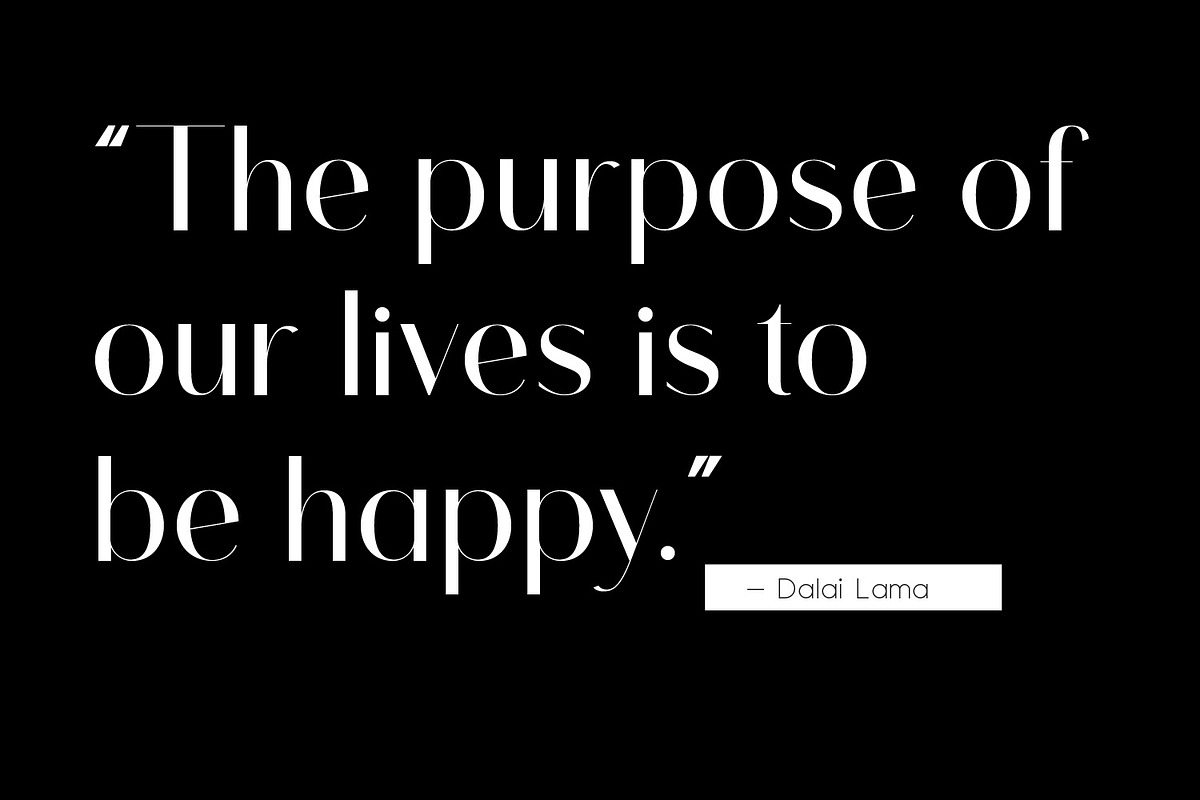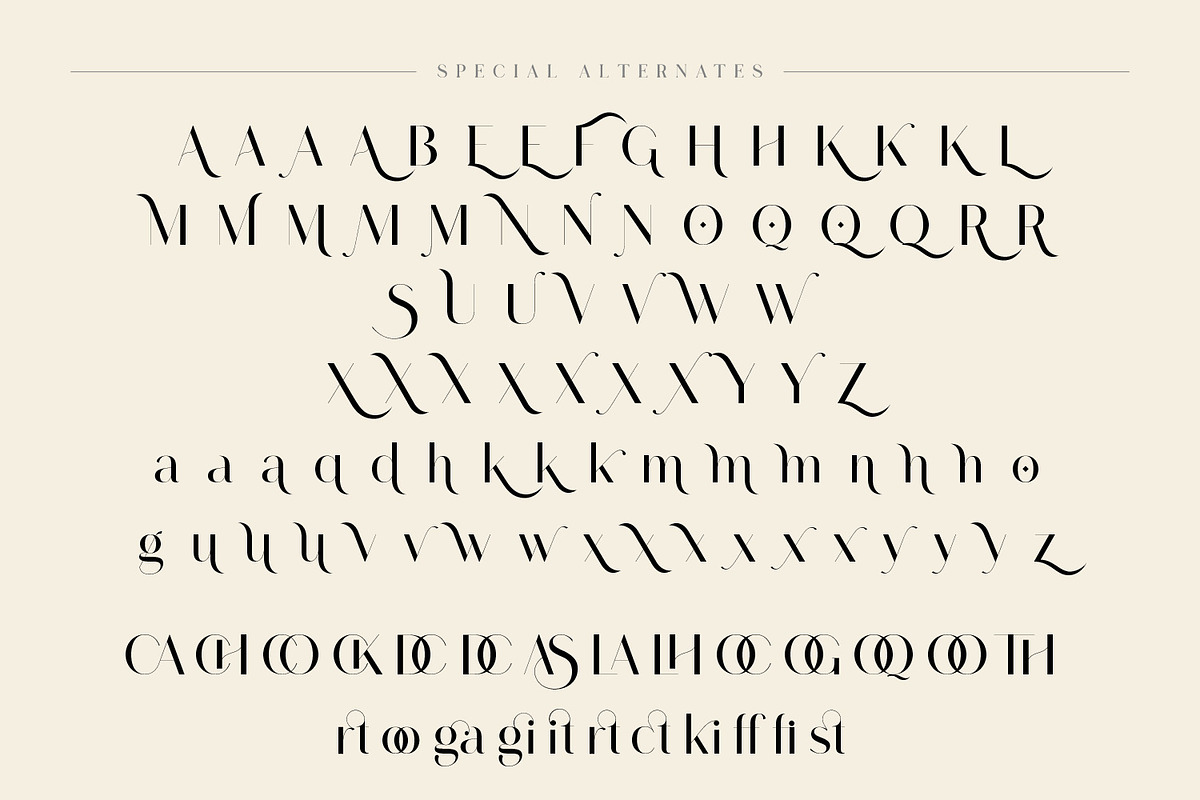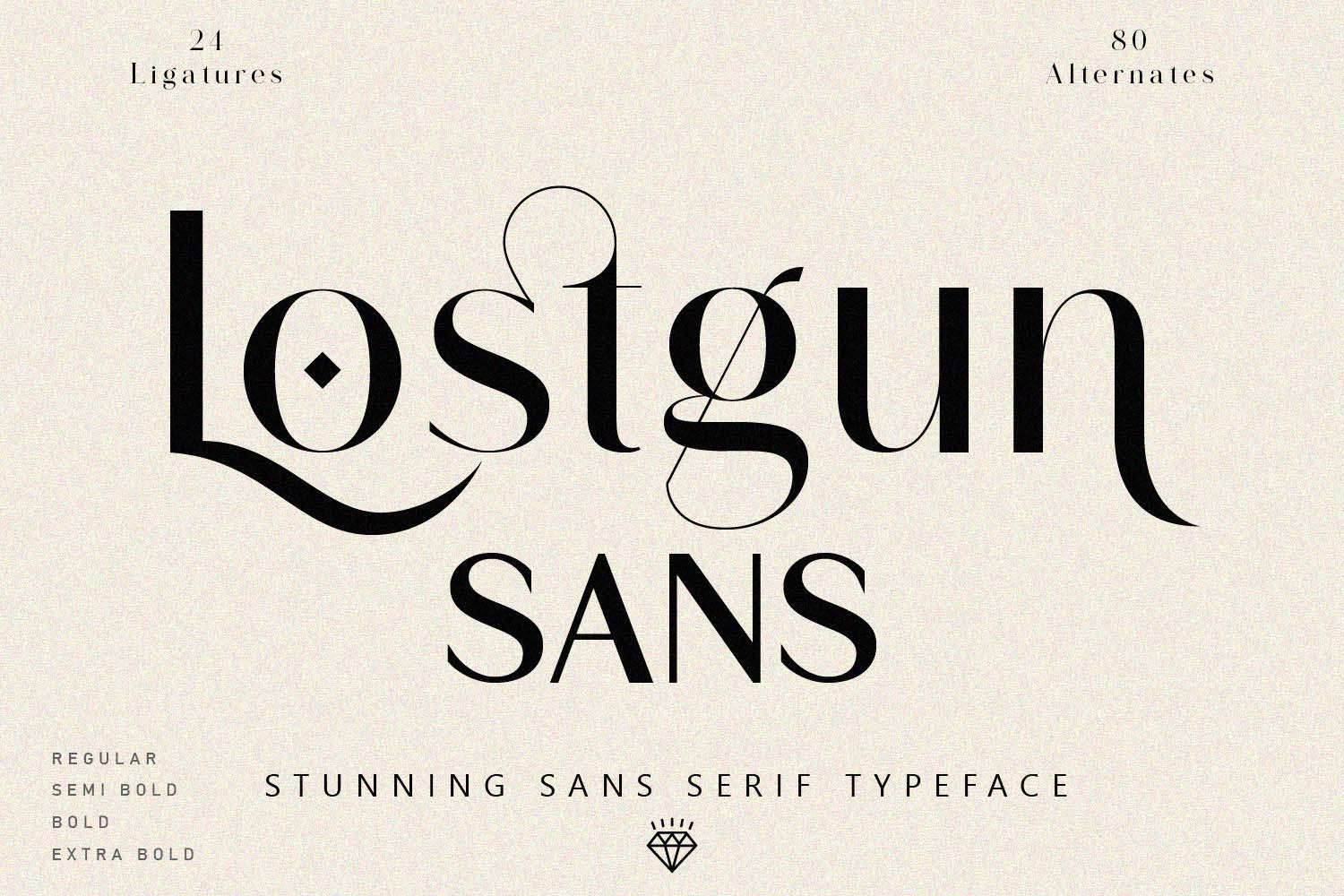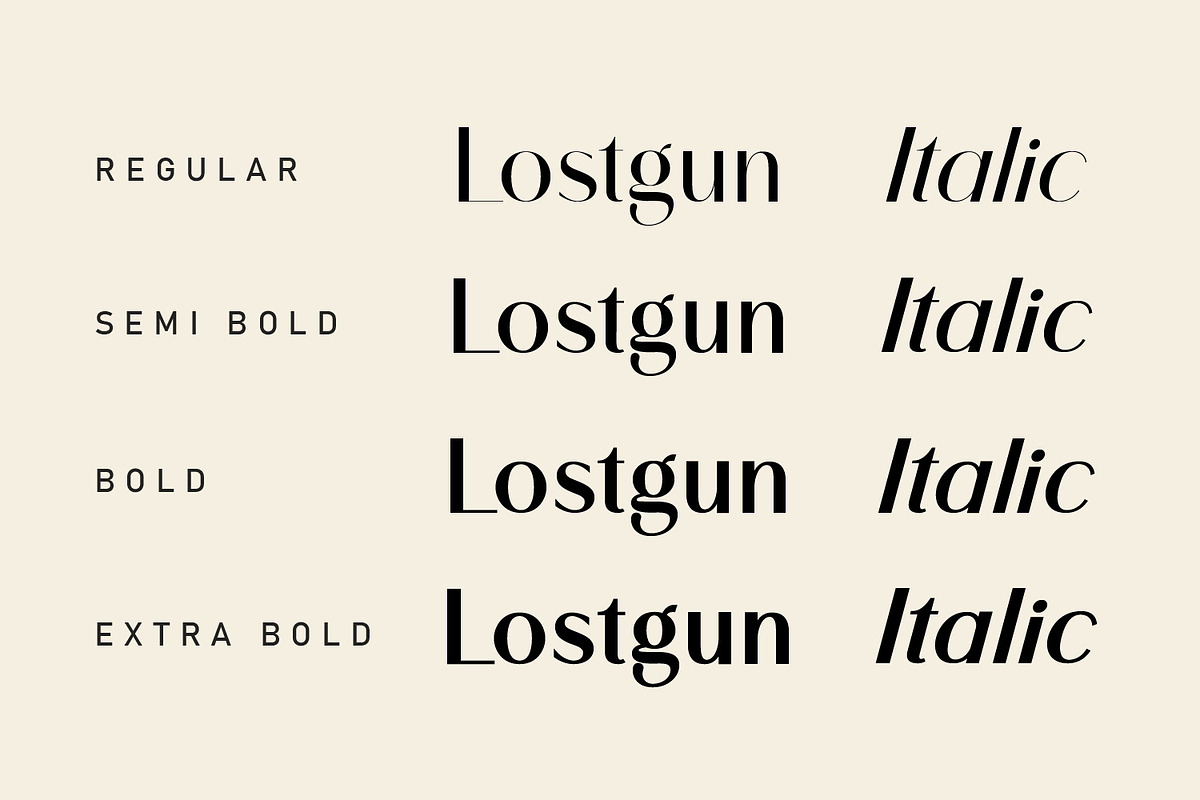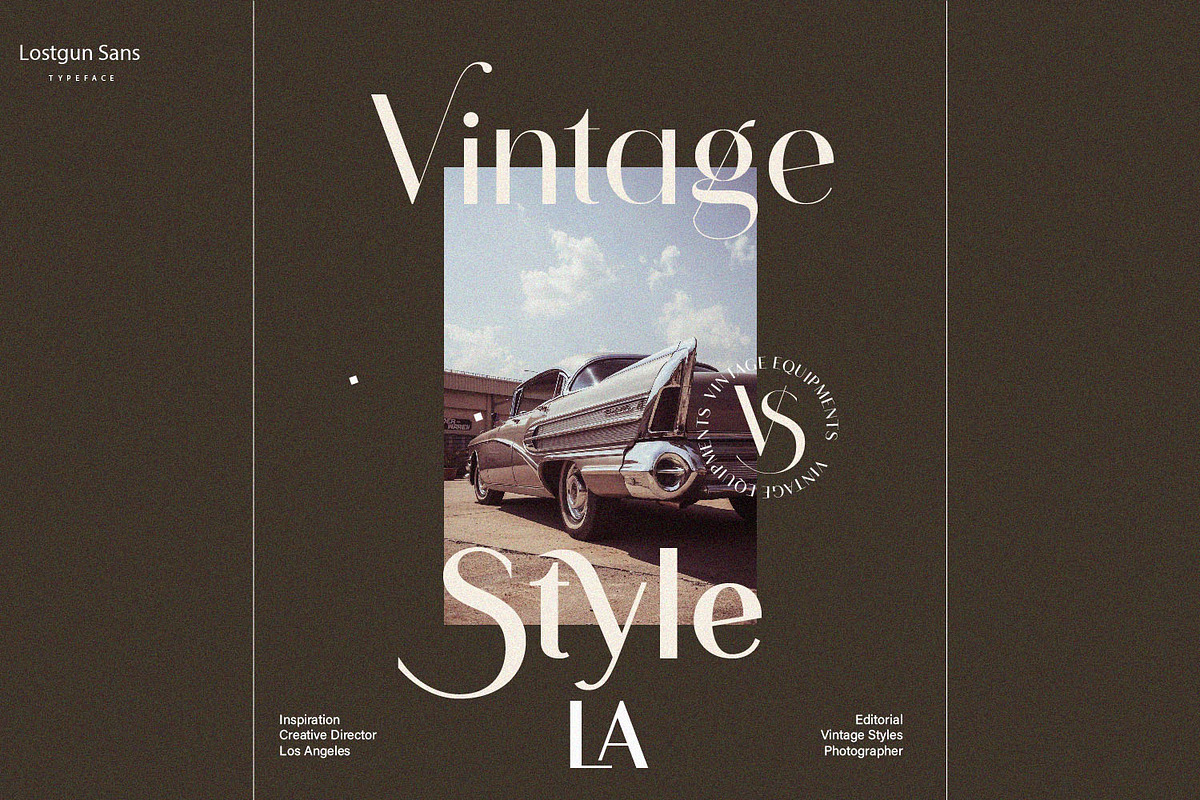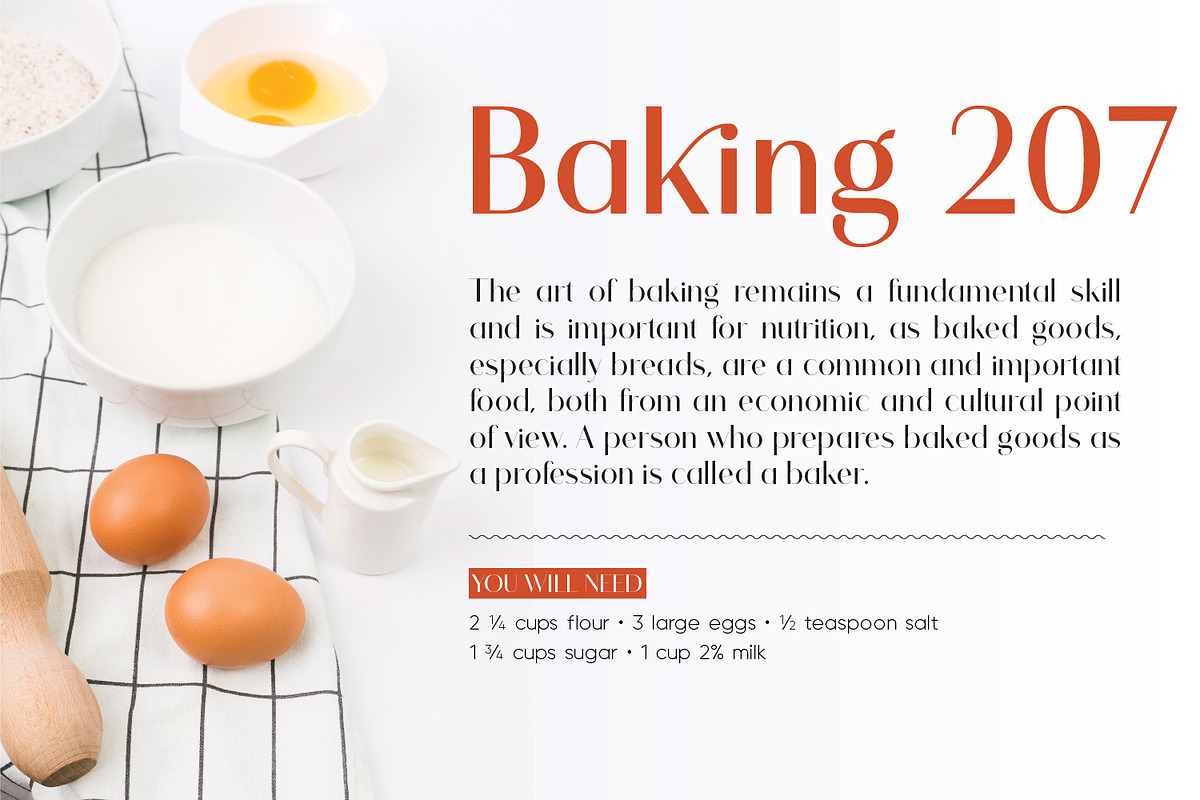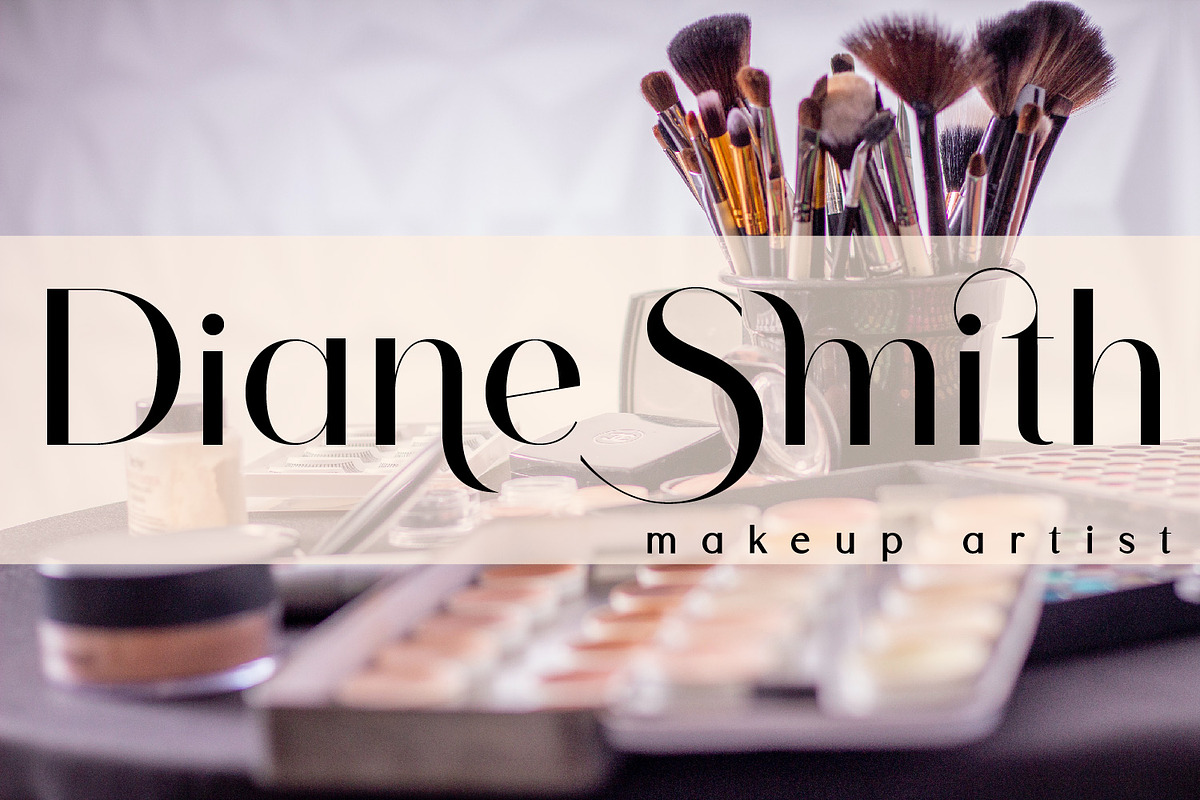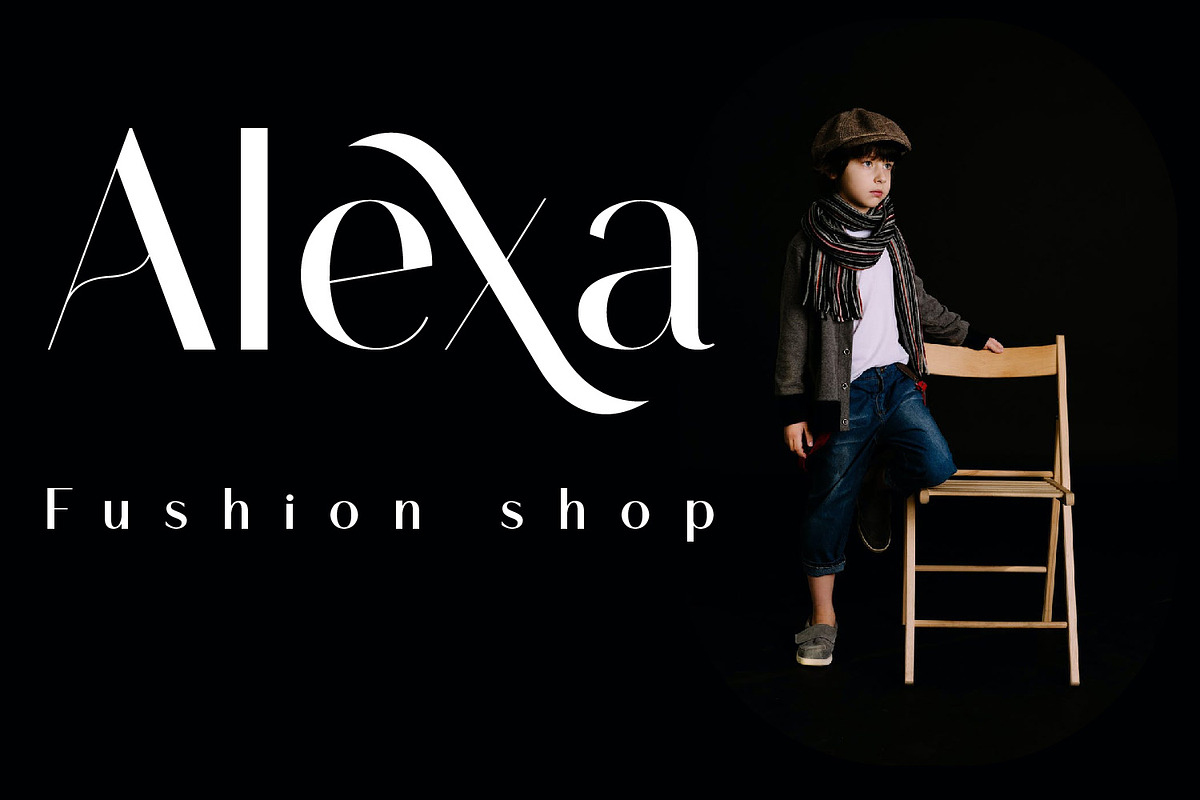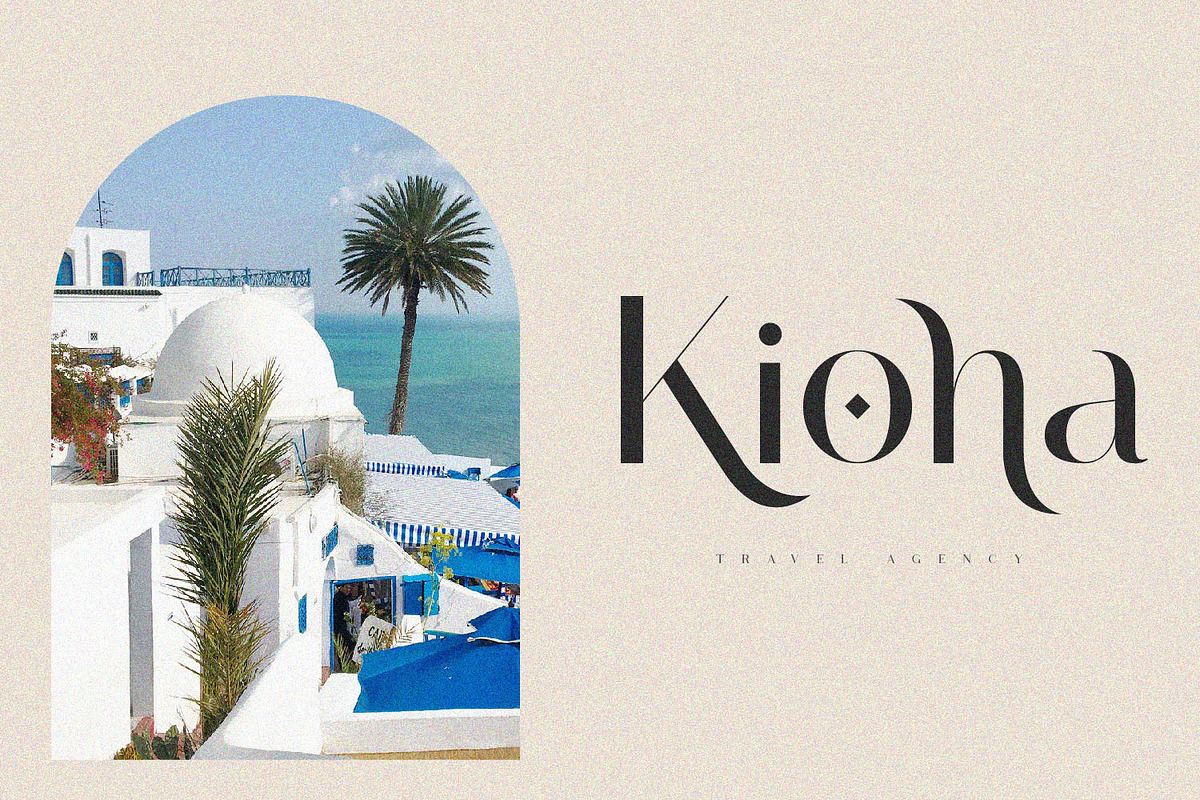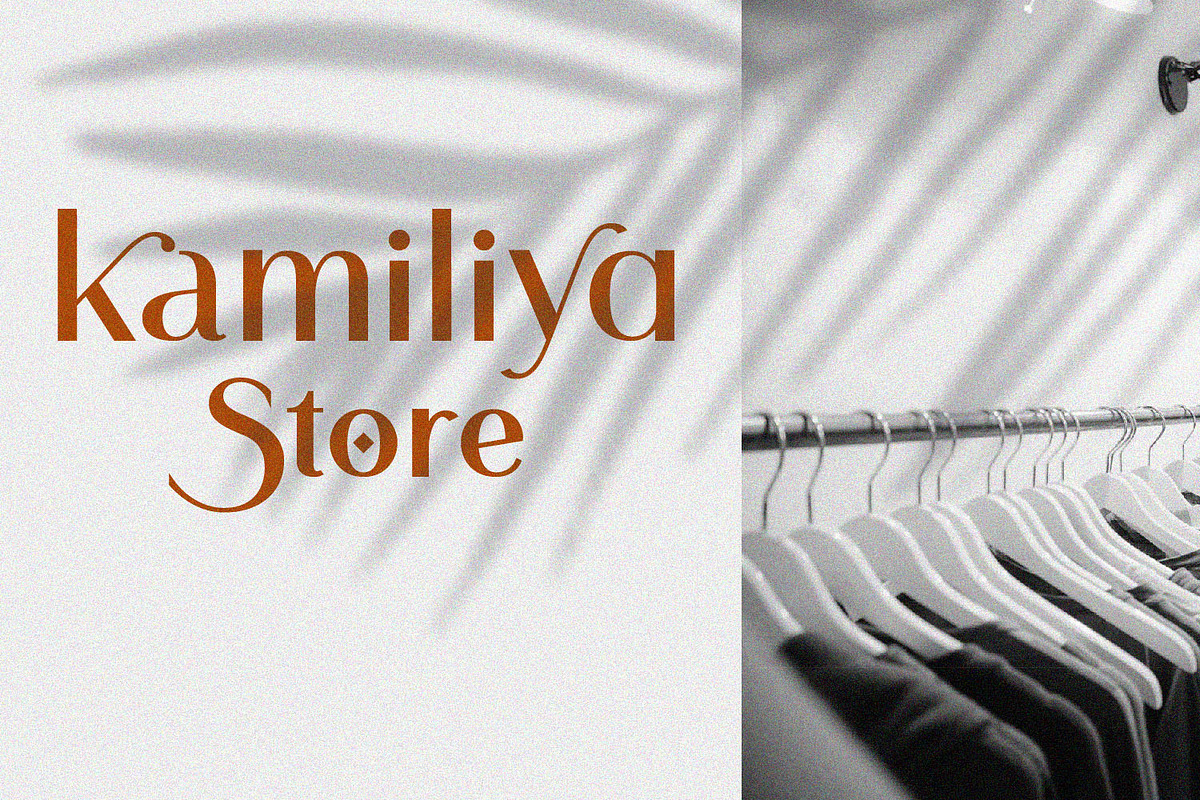
Lostgun Sans | Modern Typeface
Lostgun Sans is a sans serif version of Lostgun typeface, it is a Stunning, classy upper and lowercase typeface that looks incredible in both large and small settings. Best used as a display for headings and logos, Lostgun Sans has clean lines and smooth curves that gives any project an extra touch of class.
- Uppercase & Lowercase letters
- Punctuation and special characters